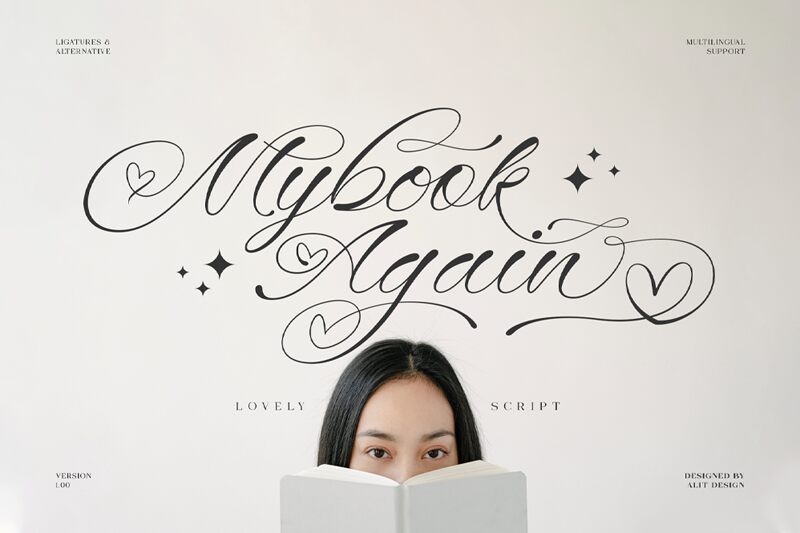
Mybook Again is a light, valentine-style calligraphy font, designed by Ny Indrayana. Perfect for any romantic or heartfelt project, Mybook Again adds a touch of character and elegance. Use it for wedding invitations, love letters, or other beautiful design projects.
Mybook Again